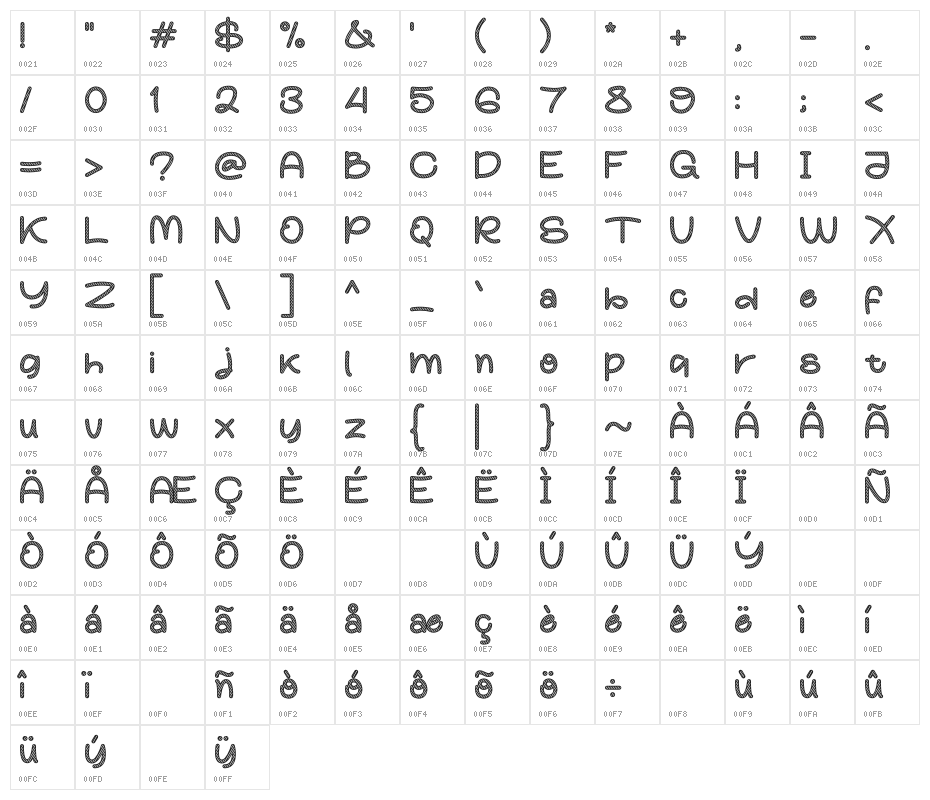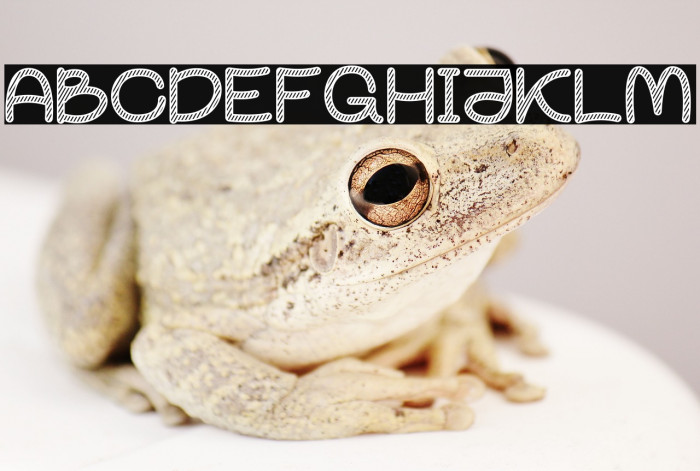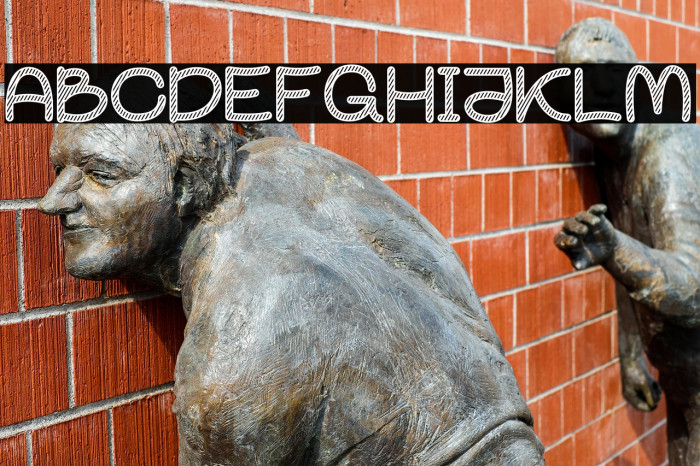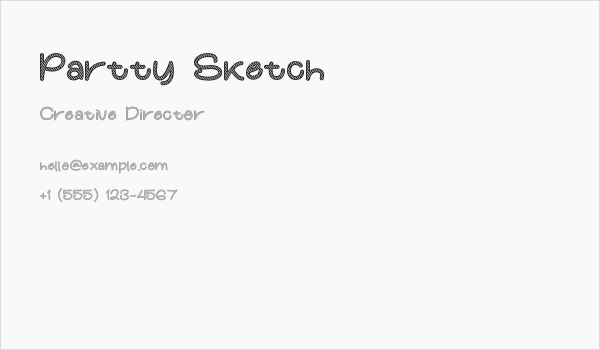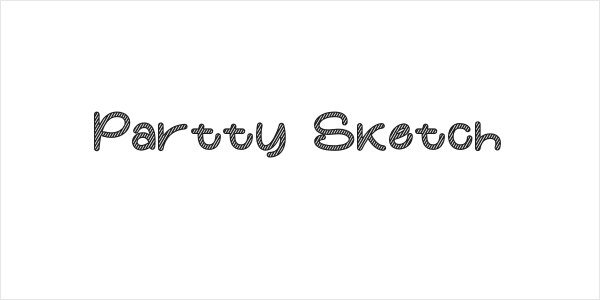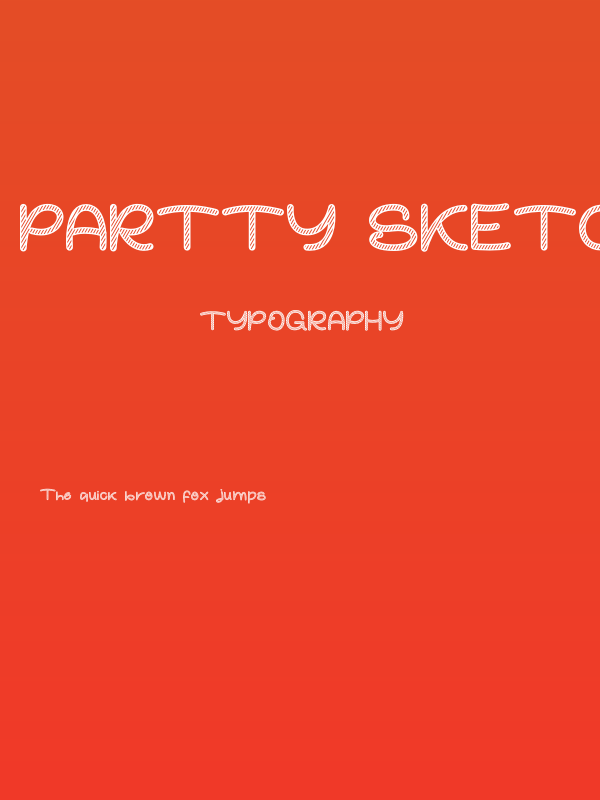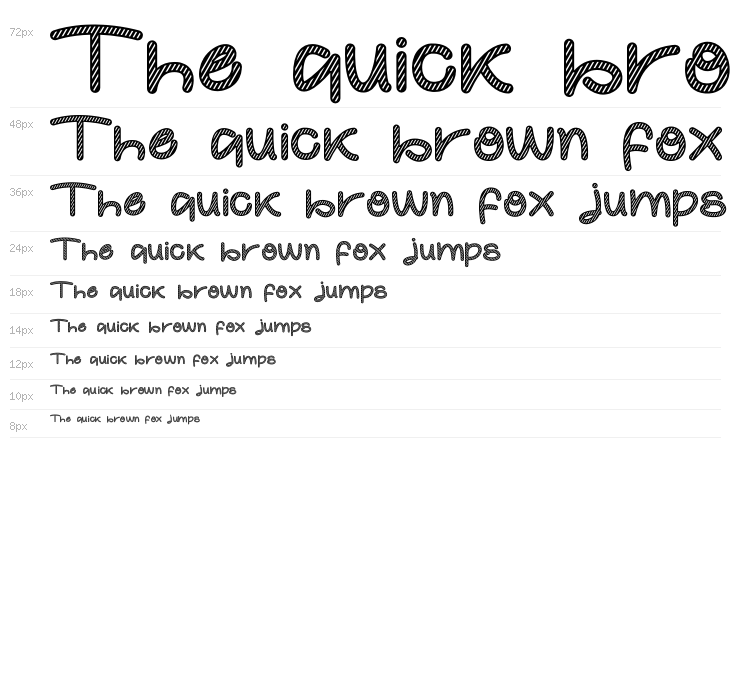
Partty Sketch Font
Partty Sketch Description
This playful and whimsical font features a sketch-like appearance with a hand-drawn quality. Each character is outlined with a bold line and filled with diagonal hatching, giving it a textured and dynamic look. The letters are rounded and slightly irregular, adding to the casual and fun aesthetic. This font is perfect for projects that require a lighthearted and informal touch, such as children's books, party invitations, or playful branding. The consistent stroke width and unique style make it stand out, while the clear legibility ensures it remains functional.
| Overall Style | Playful, Whimsical |
| Use Case | Headlines, Logos, Invitations |
| Proposed Projects | Ideal for children's books, party invitations, playful branding, and casual designs. |